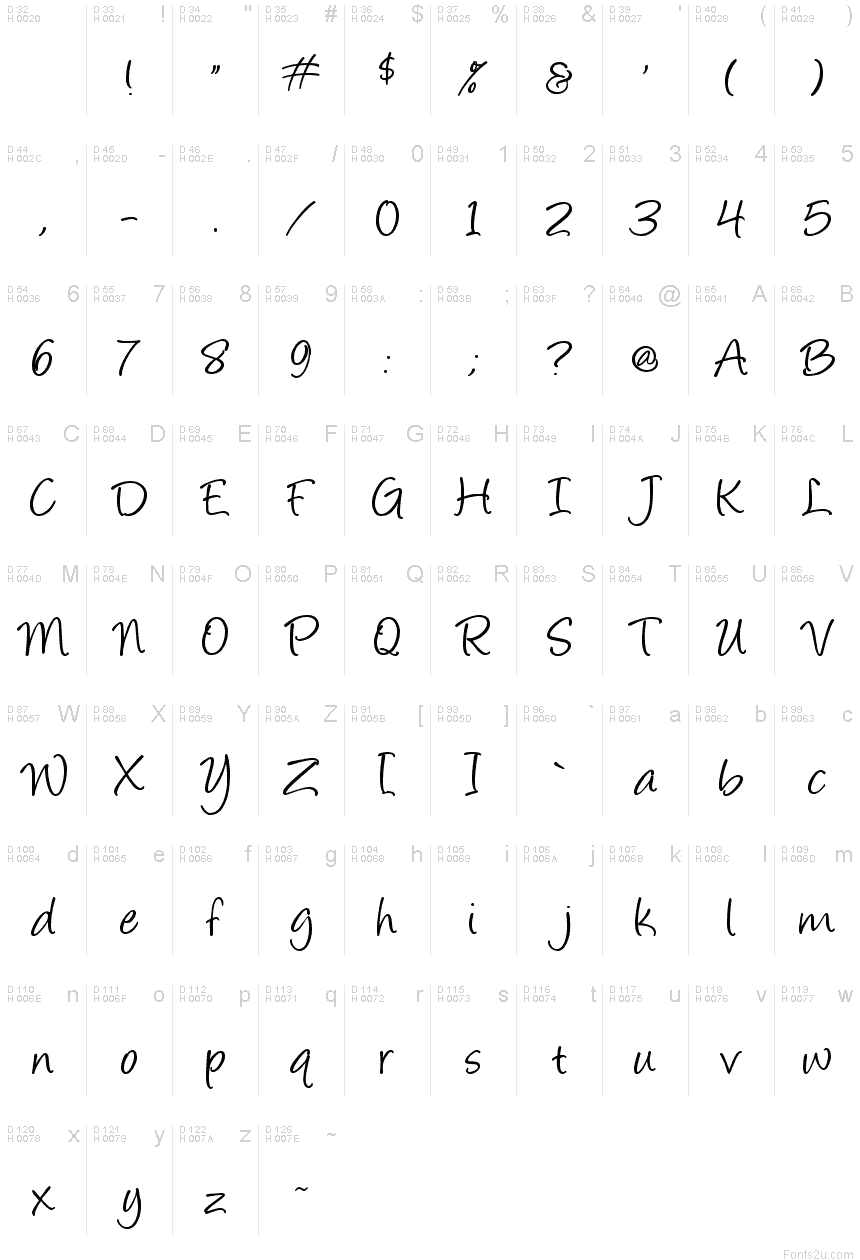
Angelina
Angelina font is a free handwritten script typeface that turns neat, everyday penmanship into clean digital lettering. Its smooth, slightly slanted strokes feel like ink gliding across paper—casual and friendly, but still easy to read at small sizes. The letters connect loosely, giving words a relaxed rhythm that feels personal without slipping into messy or overly decorative territory.
Using Angelina, you can add a warm, human touch to social media graphics, quote posts, product packaging, branding for cozy cafés or boutiques, greeting cards, and blog headers. This free font shines when you give it a bit of breathing room, so try generous line spacing and pair it with a simple sans serif for body text to keep things clear and balanced.